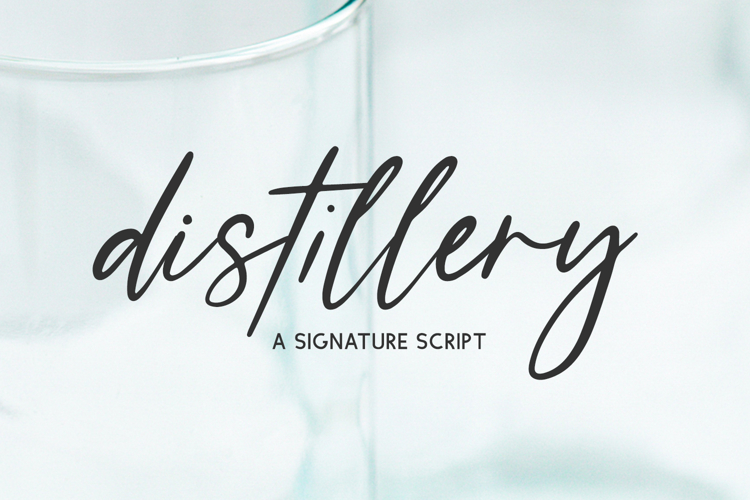
Introducing Distillery Script, a signature font with alternates.
Distillery Script is best for:
- website design + website accents - think travel blogs, fashion blogs, & more